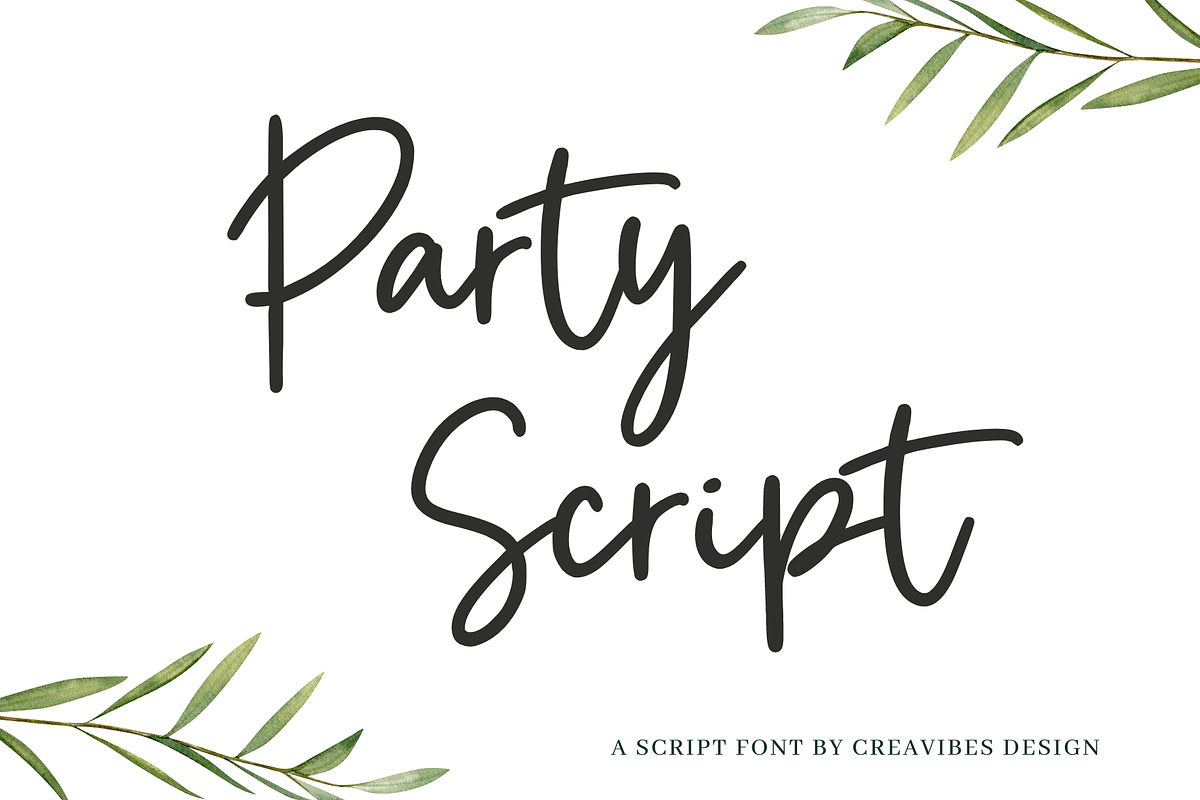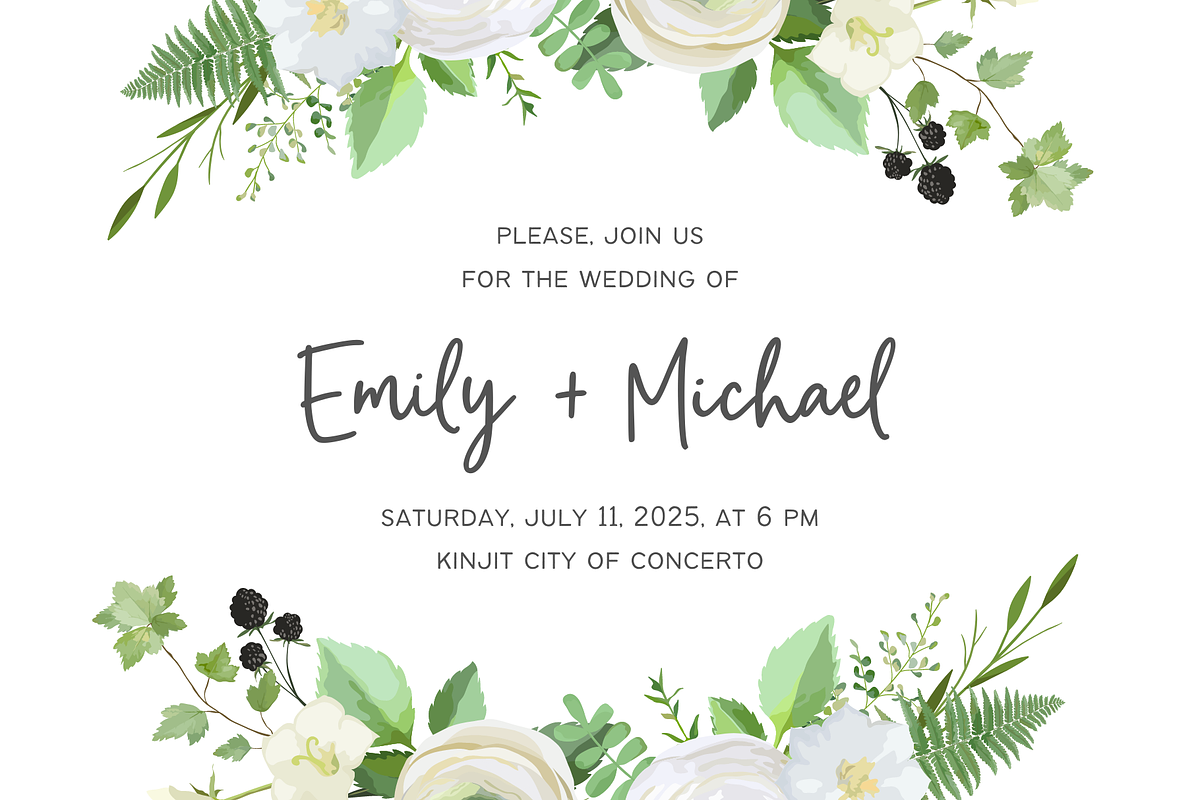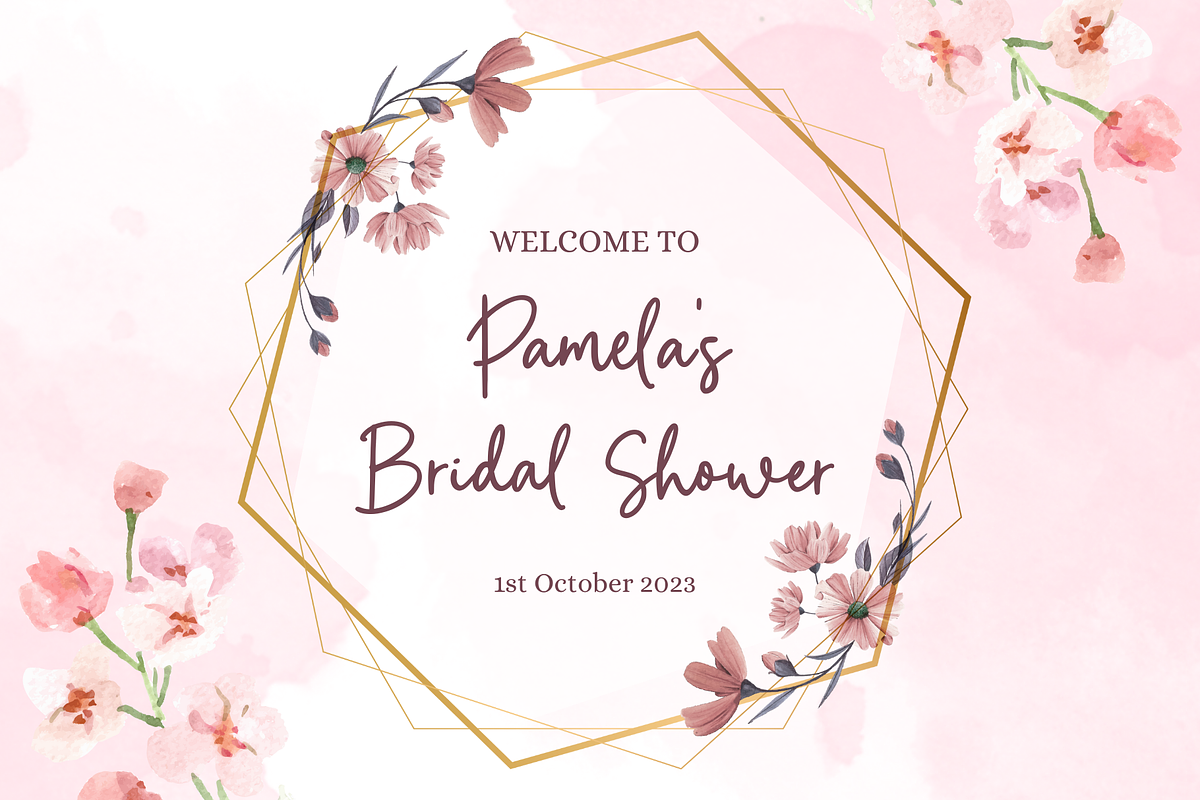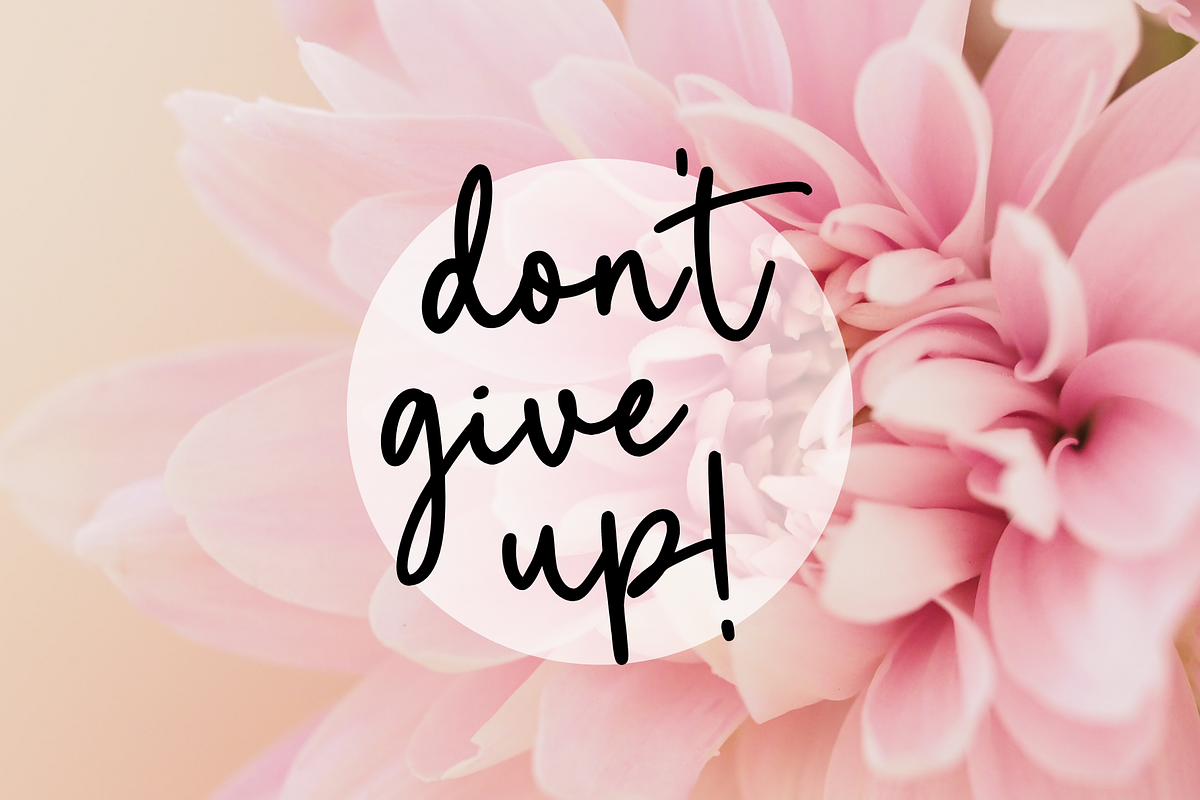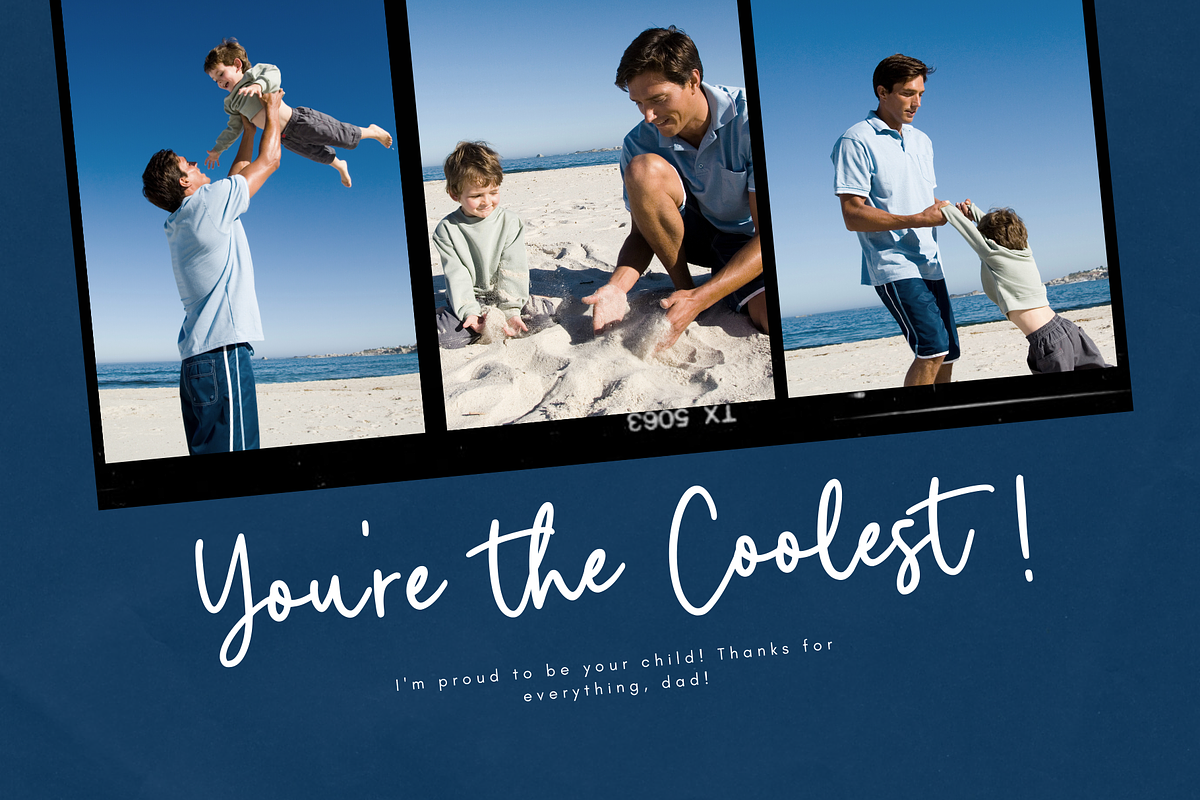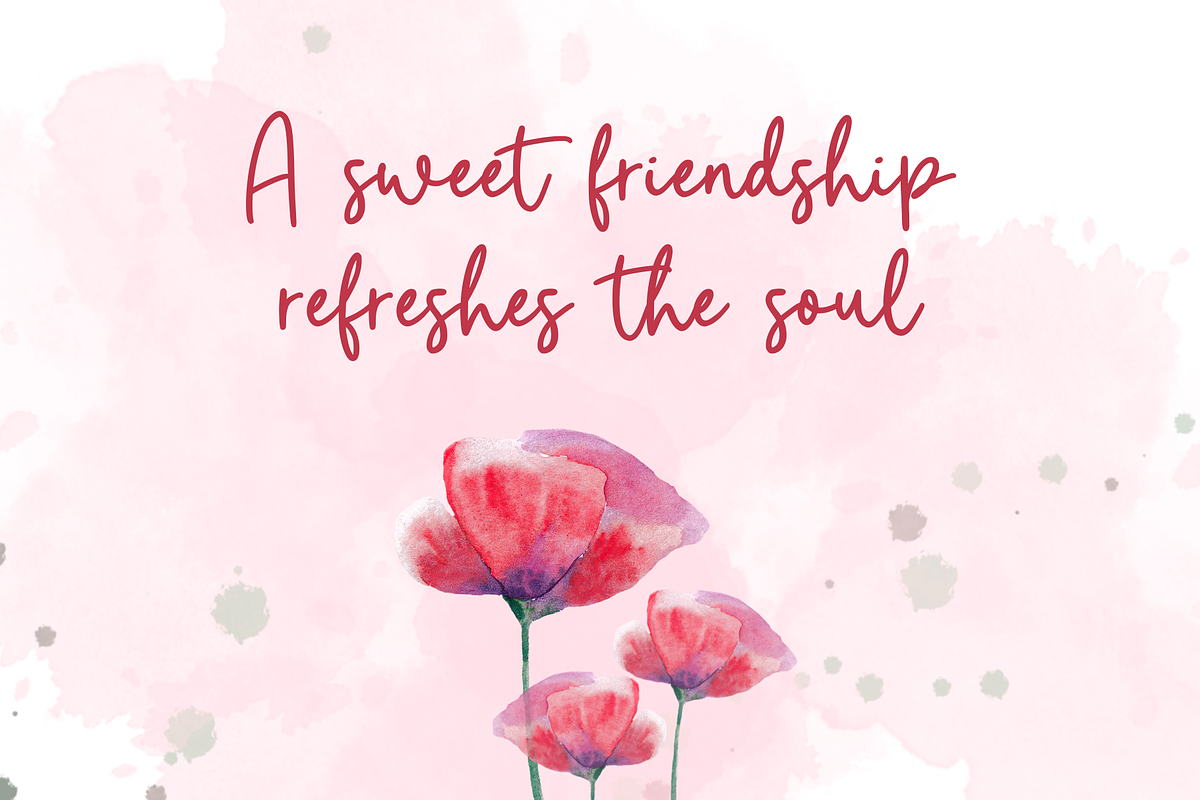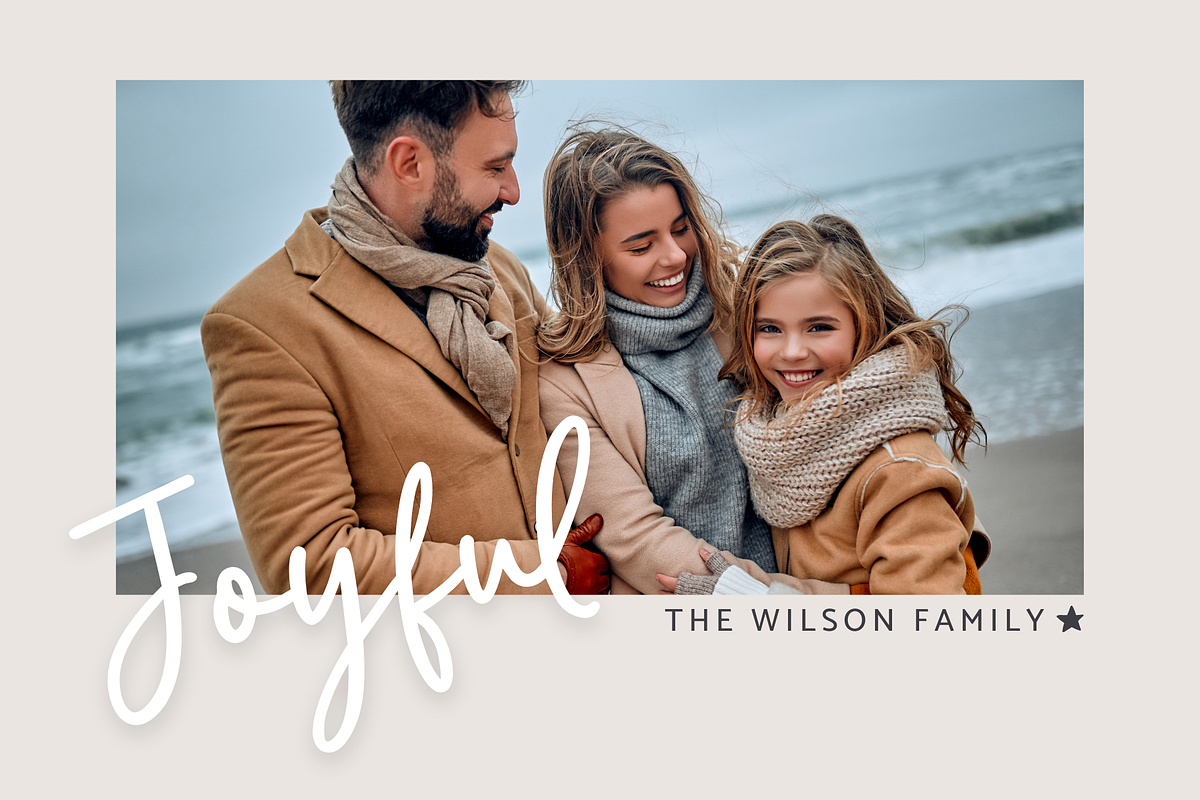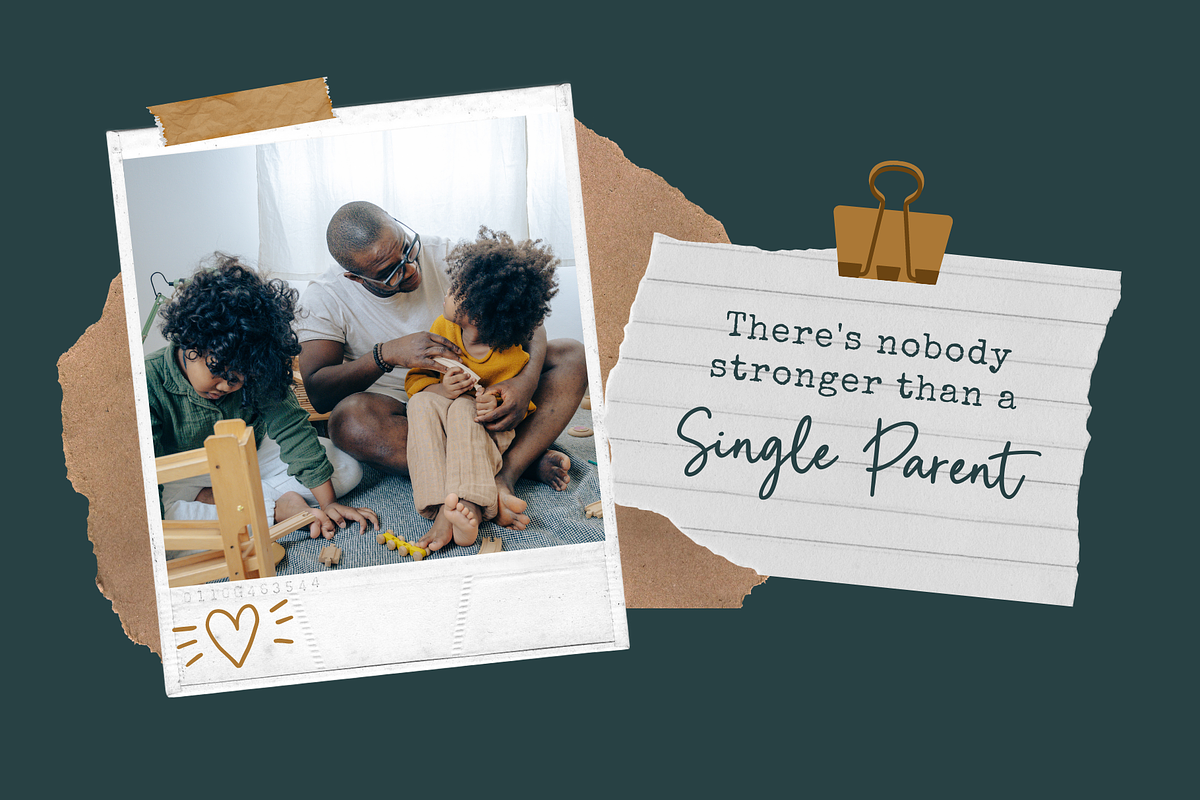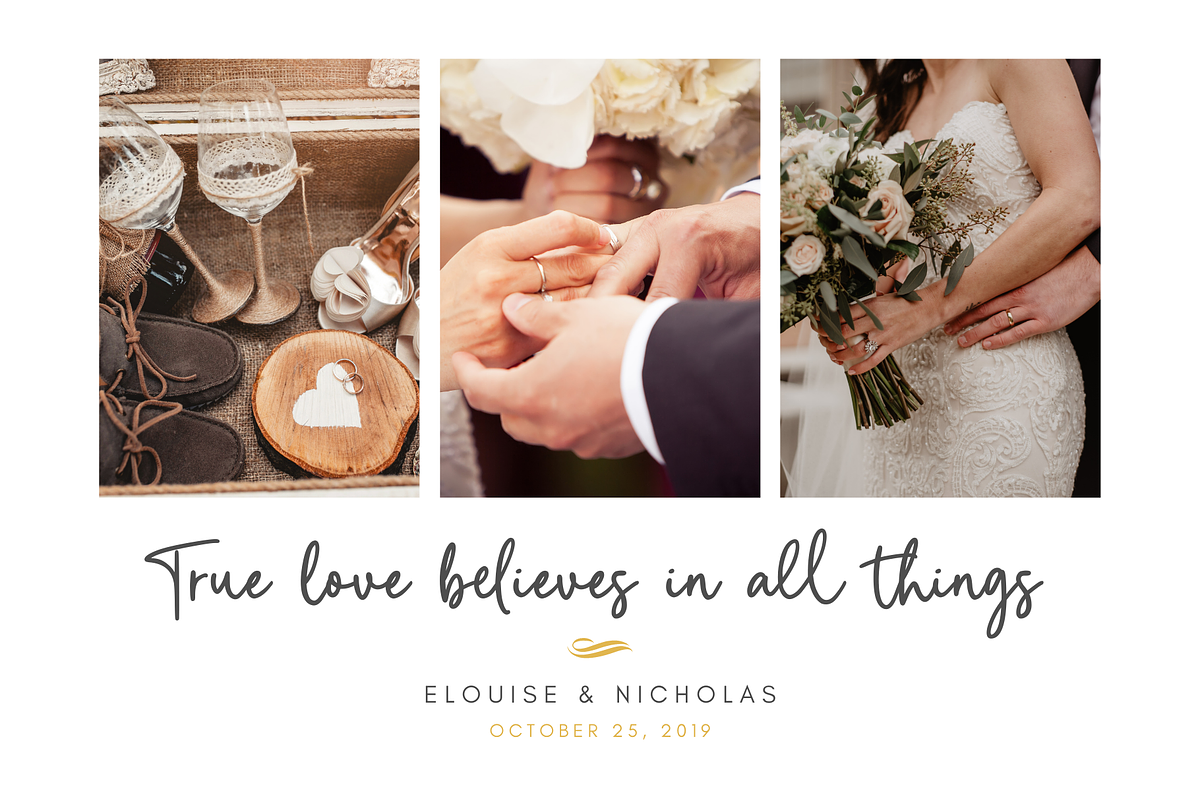
Party Script - A Handwritten Font
Party Script - A Handwritten Font, this font is perfect for branding, invitation, stationery, wedding designs, social media posts, advertisements, product packaging, product designs, label, photography, watermark, special events, and more.
- Uppercase and lowercase letters
- Multilingual, numerals, and punctuation